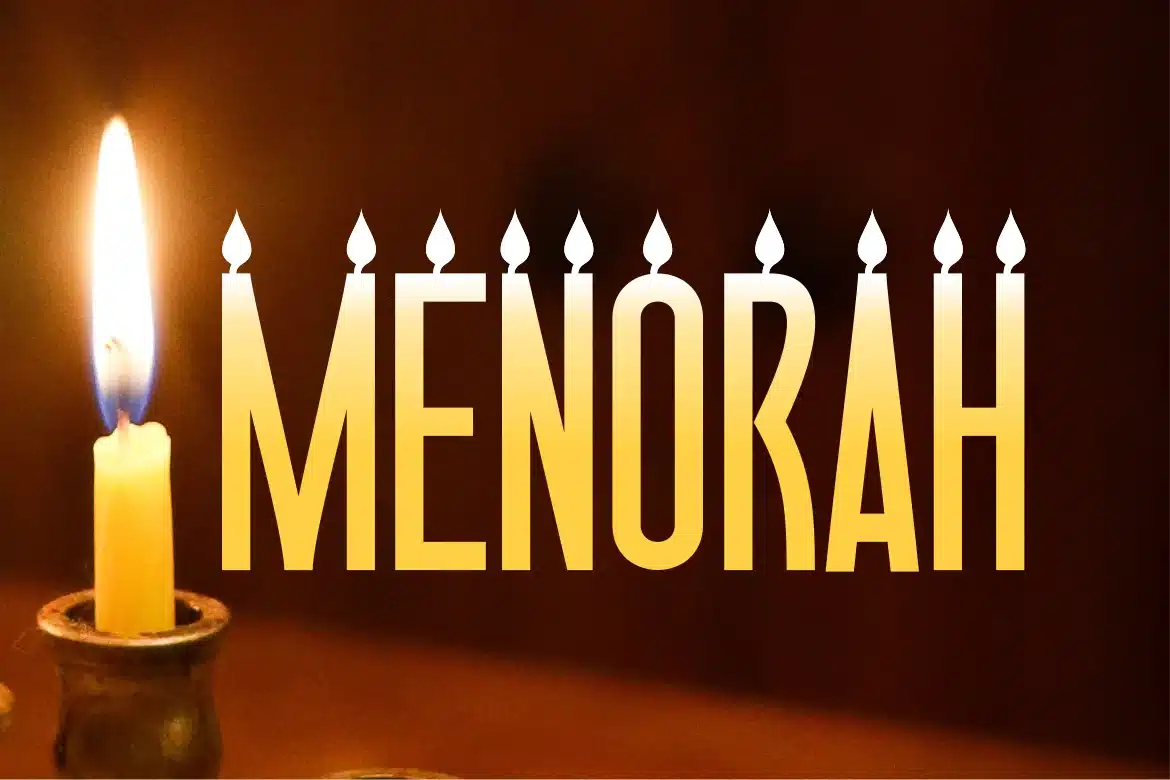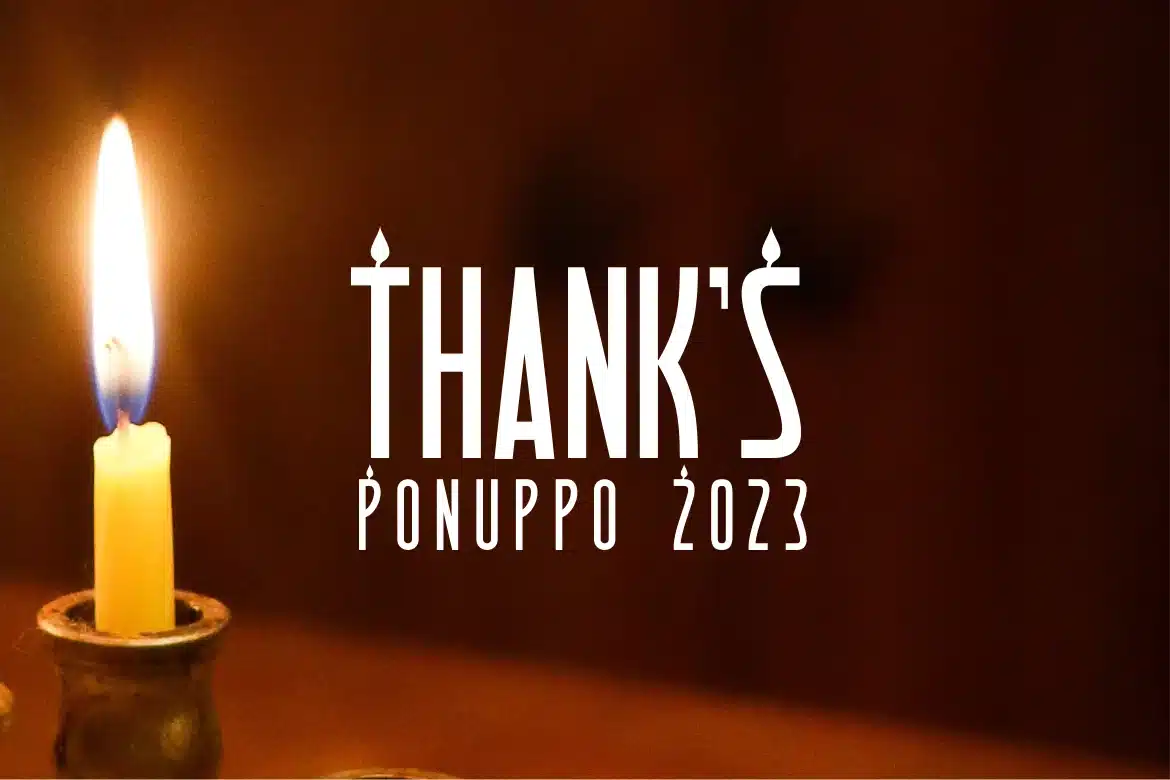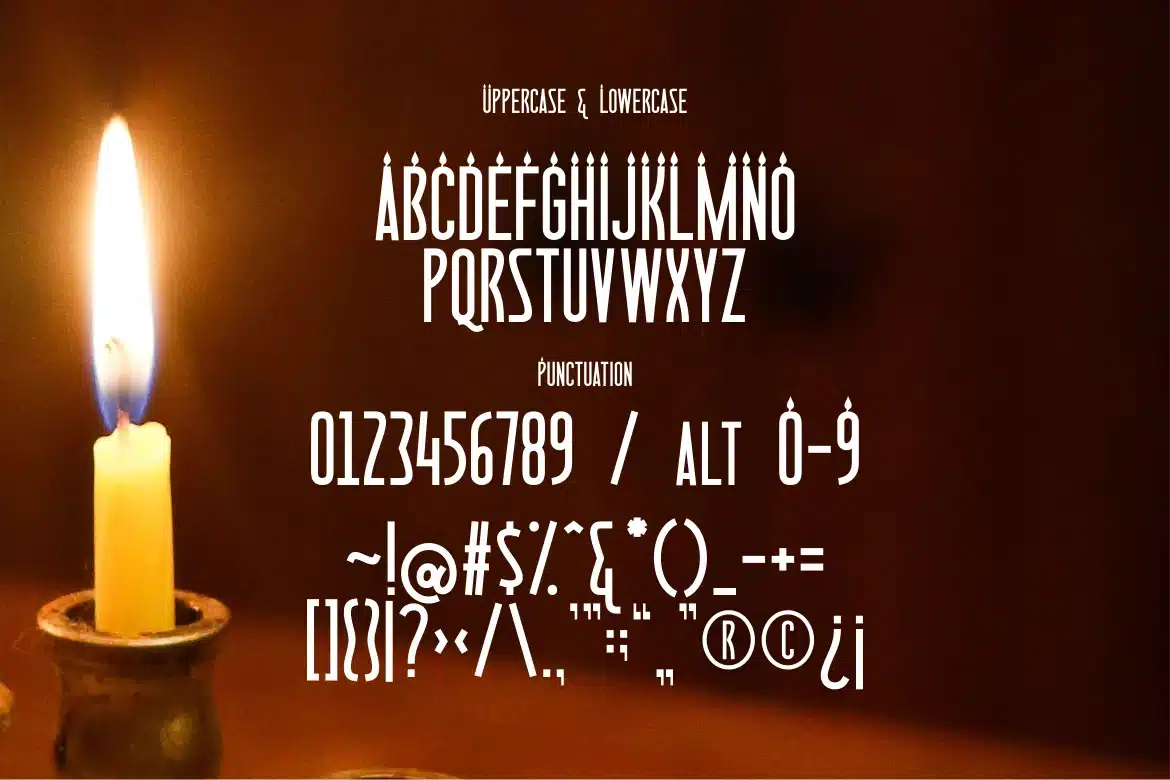
Porisathe Decorative Font
A very special Hanukkah special font.
Feel the excitement of Hanukkah with this font.
Capital letters are given wax ornaments, the rest is normal.
The numbering also has an alternative candle ornament.